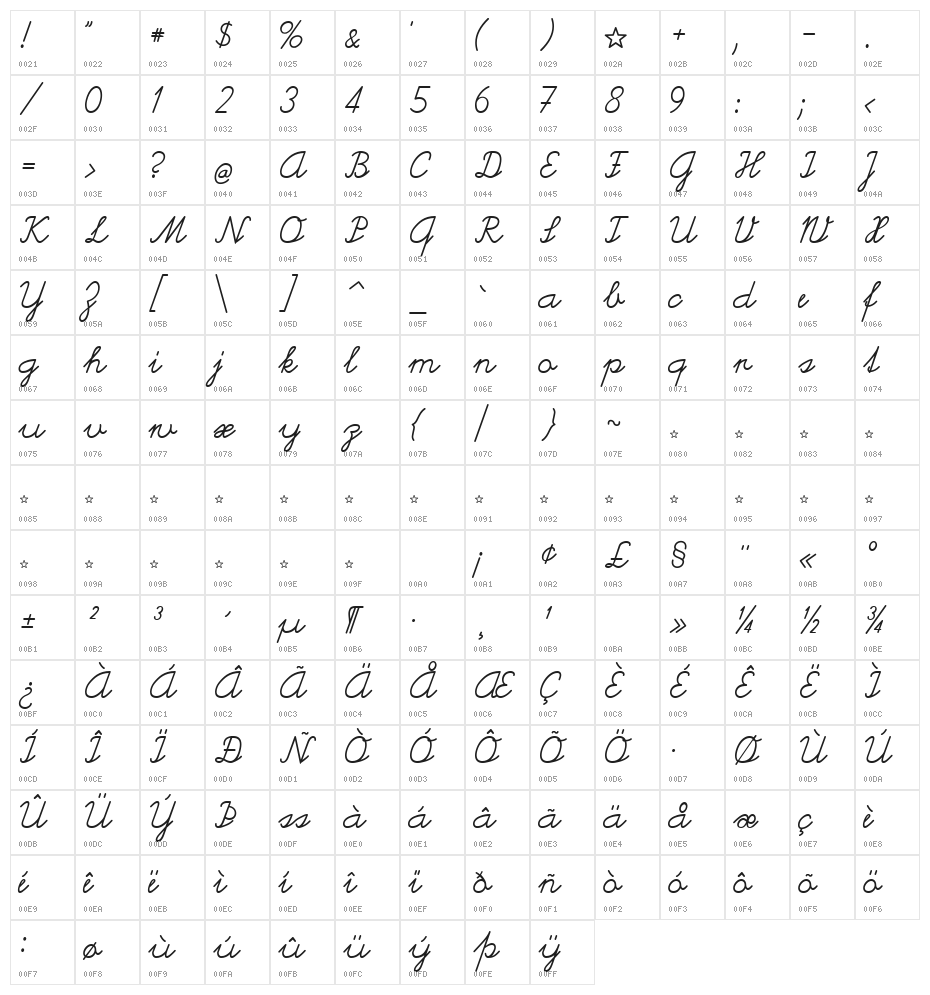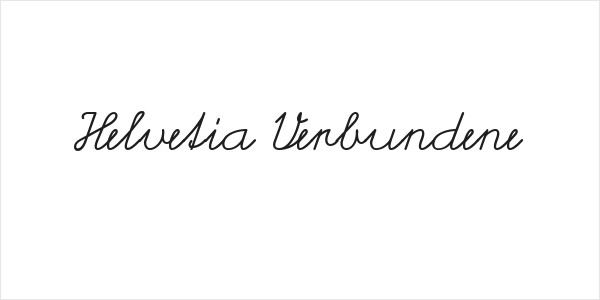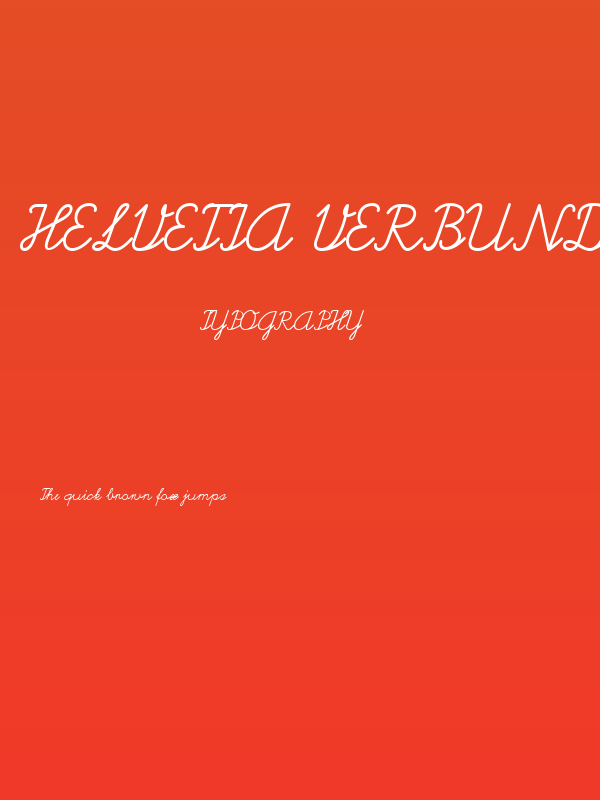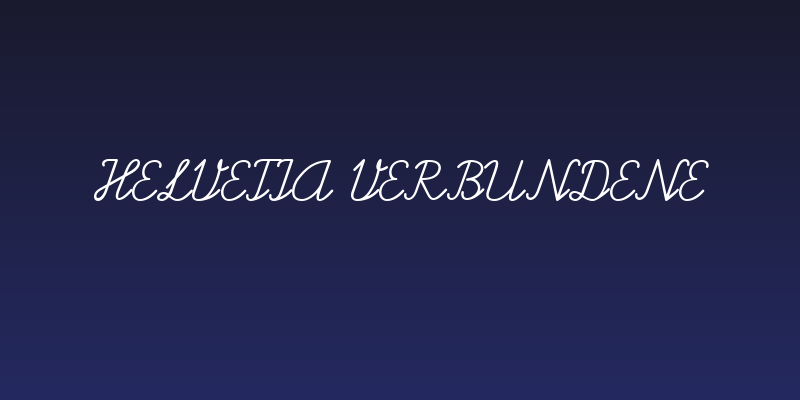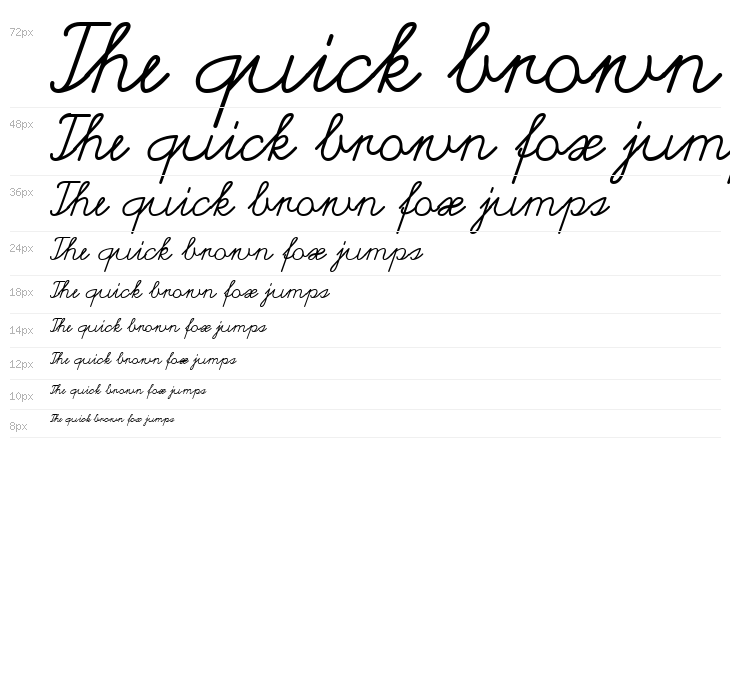
Helvetia Verbundene Font
Helvetia Verbundene Description
This elegant script font features smooth, flowing lines that mimic the natural motion of handwriting. Each letter is connected, creating a seamless and continuous appearance. The uppercase letters are slightly larger and more pronounced, while the lowercase letters maintain a consistent height, adding to the font's readability. The numerals are clear and distinct, matching the style of the alphabet. Special characters are included, maintaining the same fluidity and style. This font exudes a sense of sophistication and grace, making it ideal for formal invitations or elegant branding.